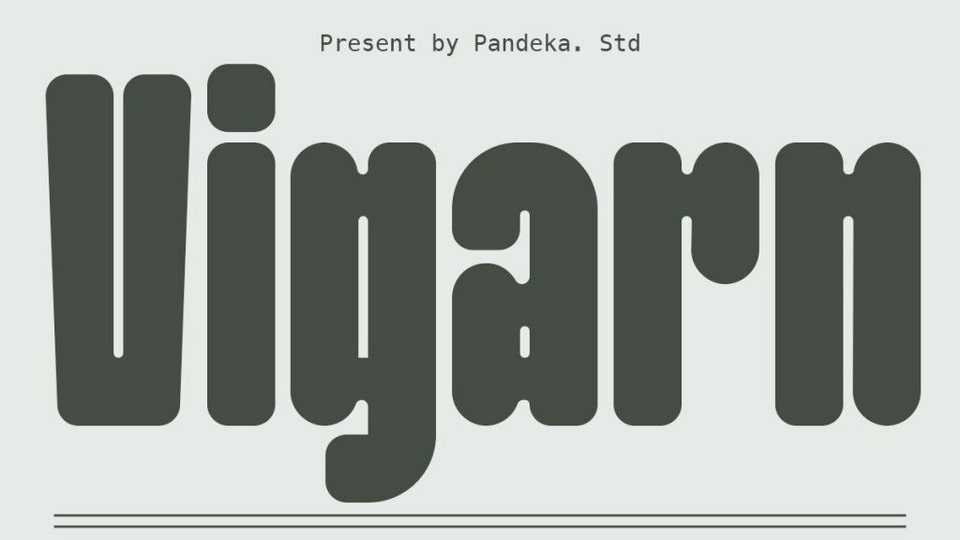
Download Vigarn font, a modern sans serif typeface that has a strong but soft character, with a cheerful and fresh theme. Vigarn is able to answer your current needs who are designing something great.